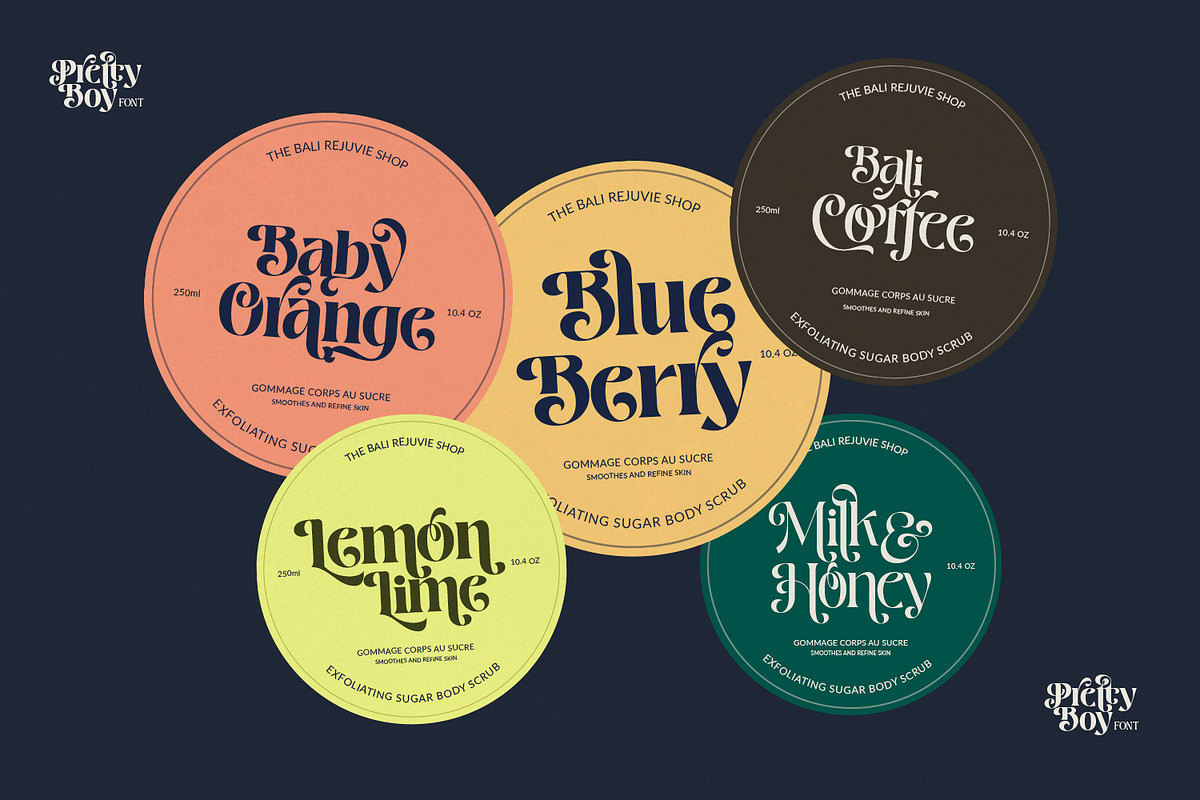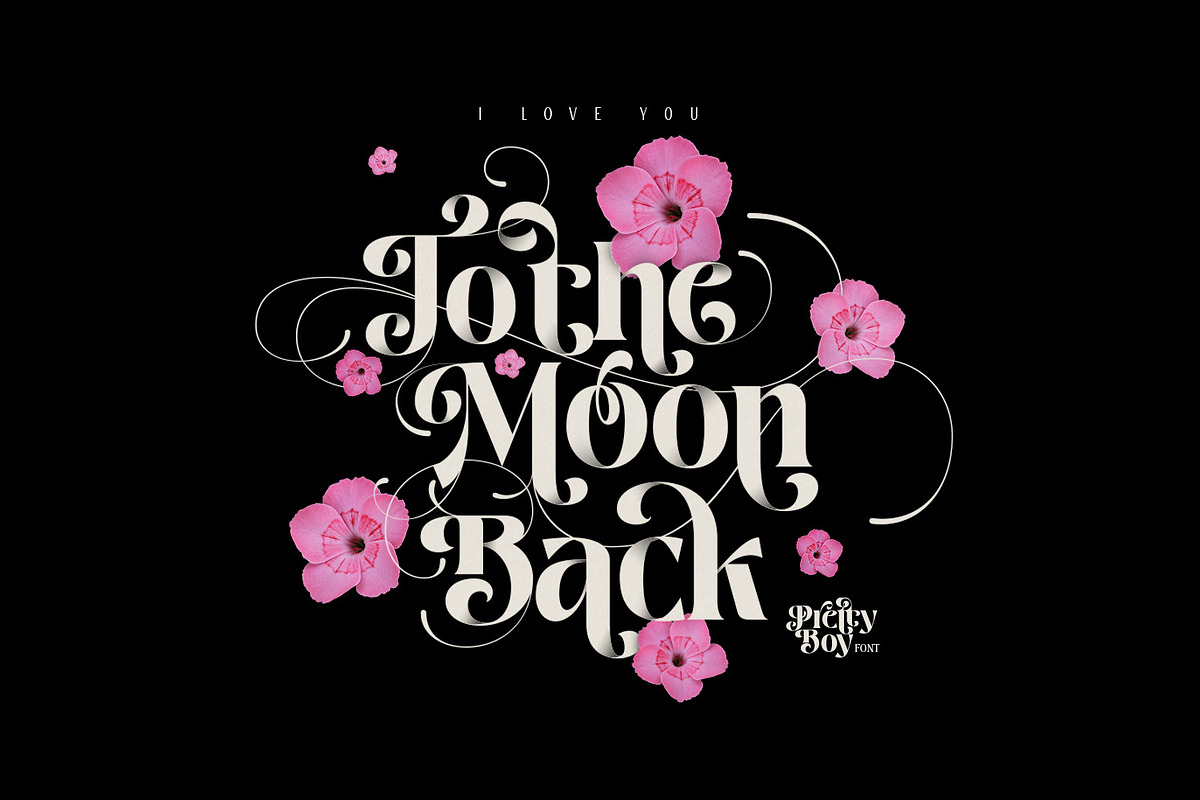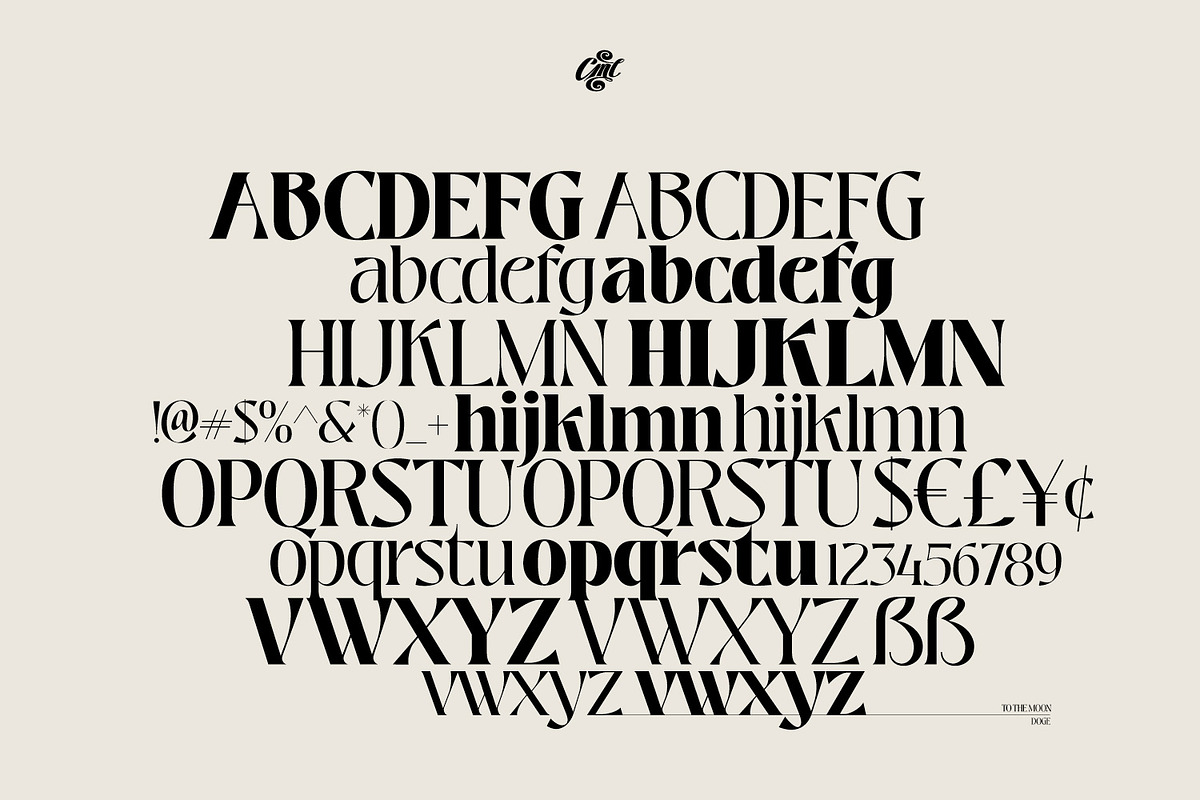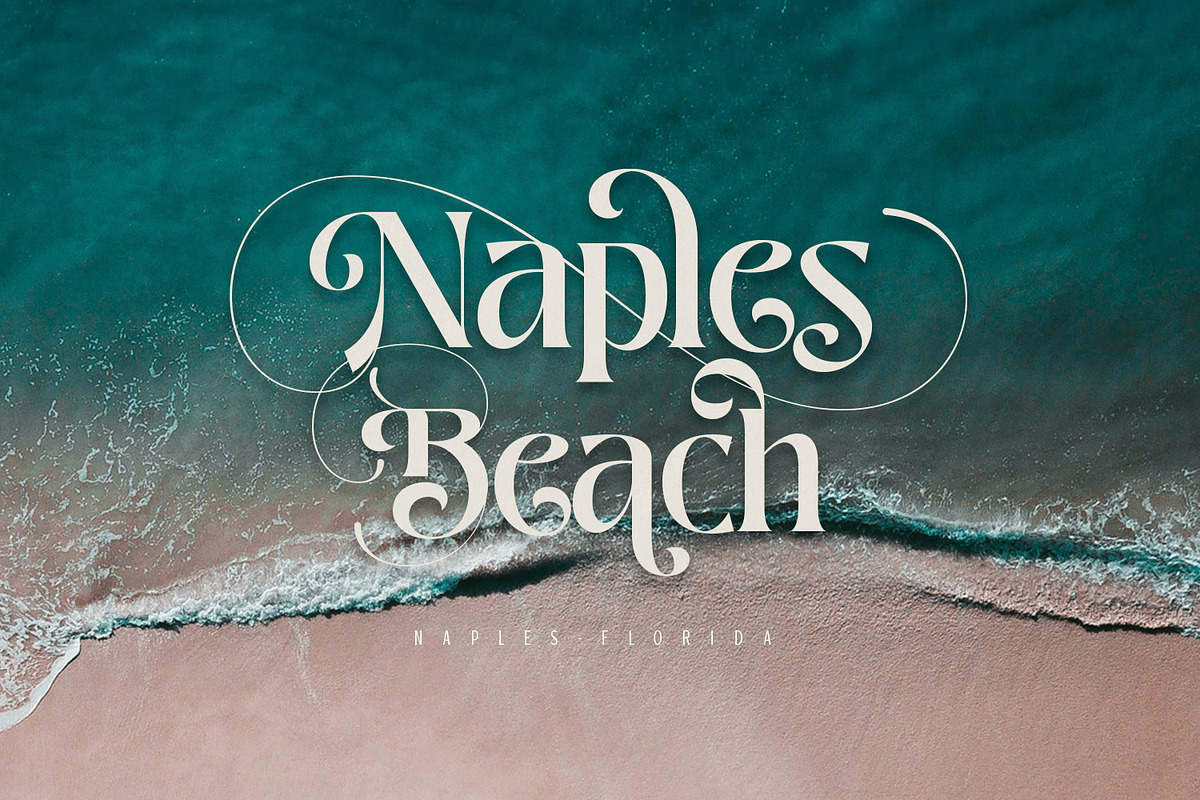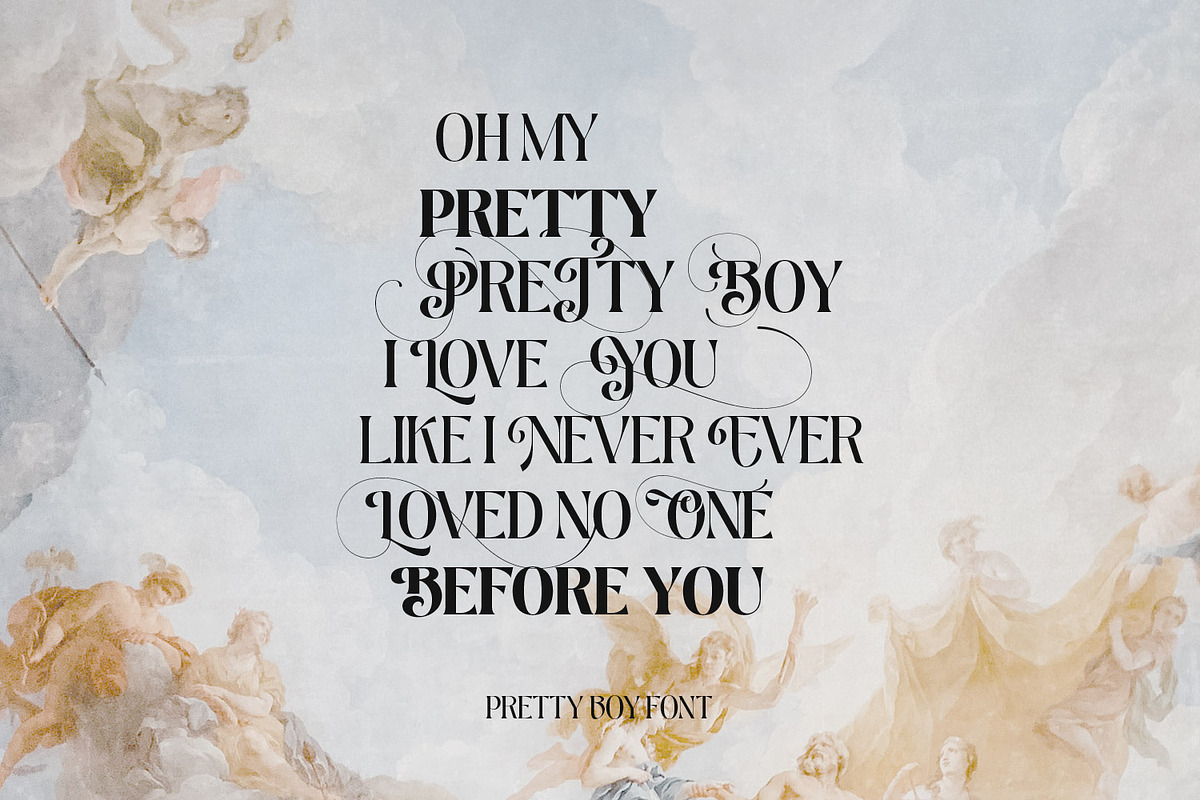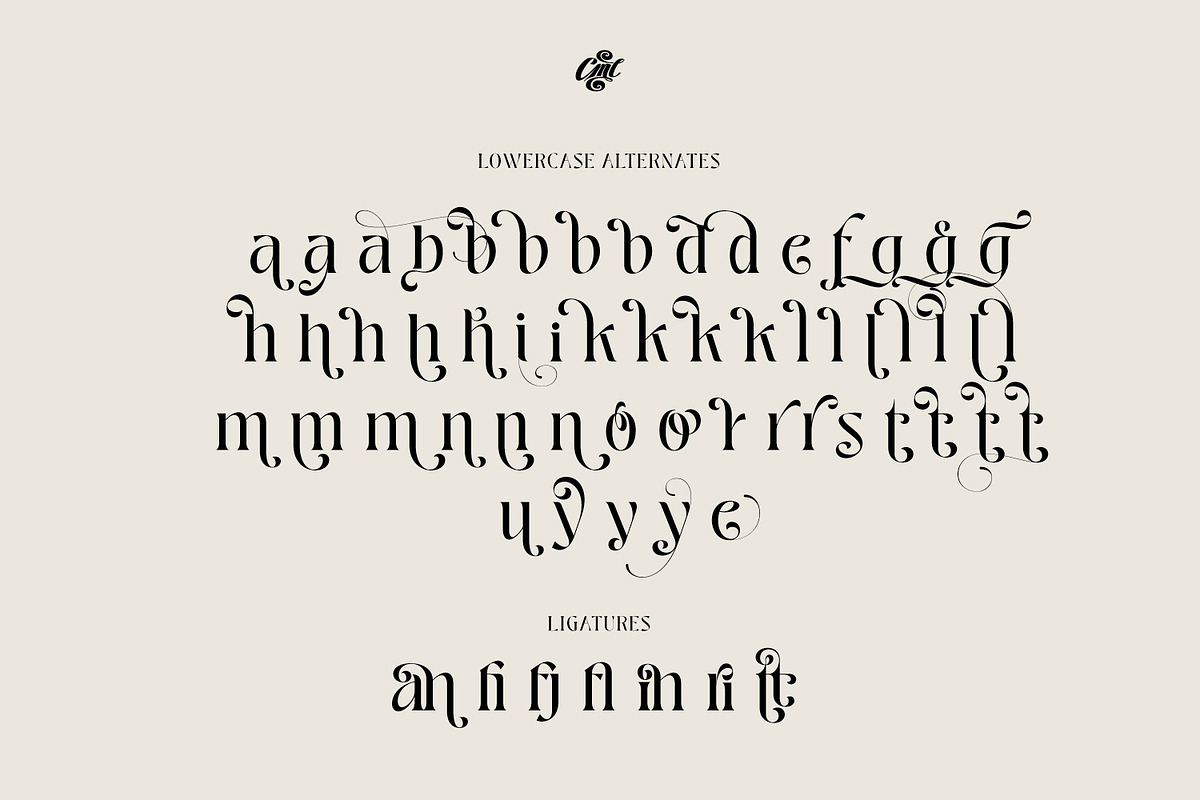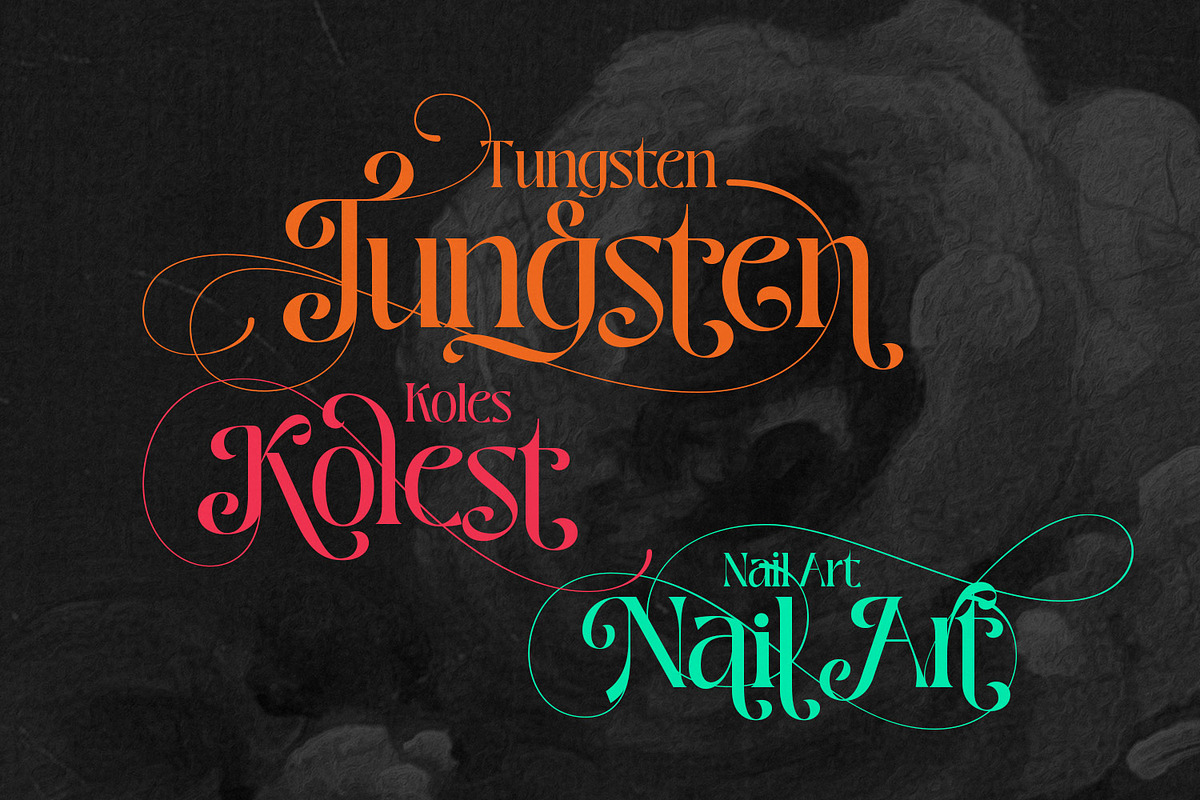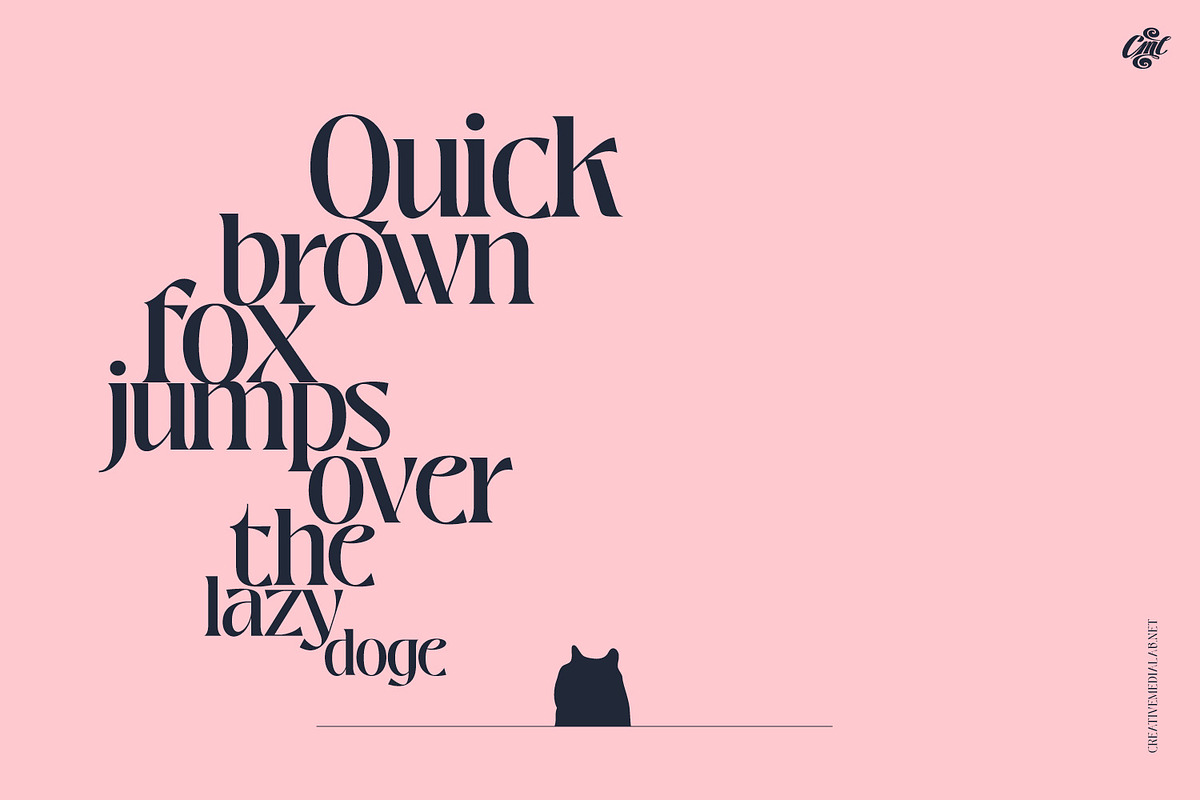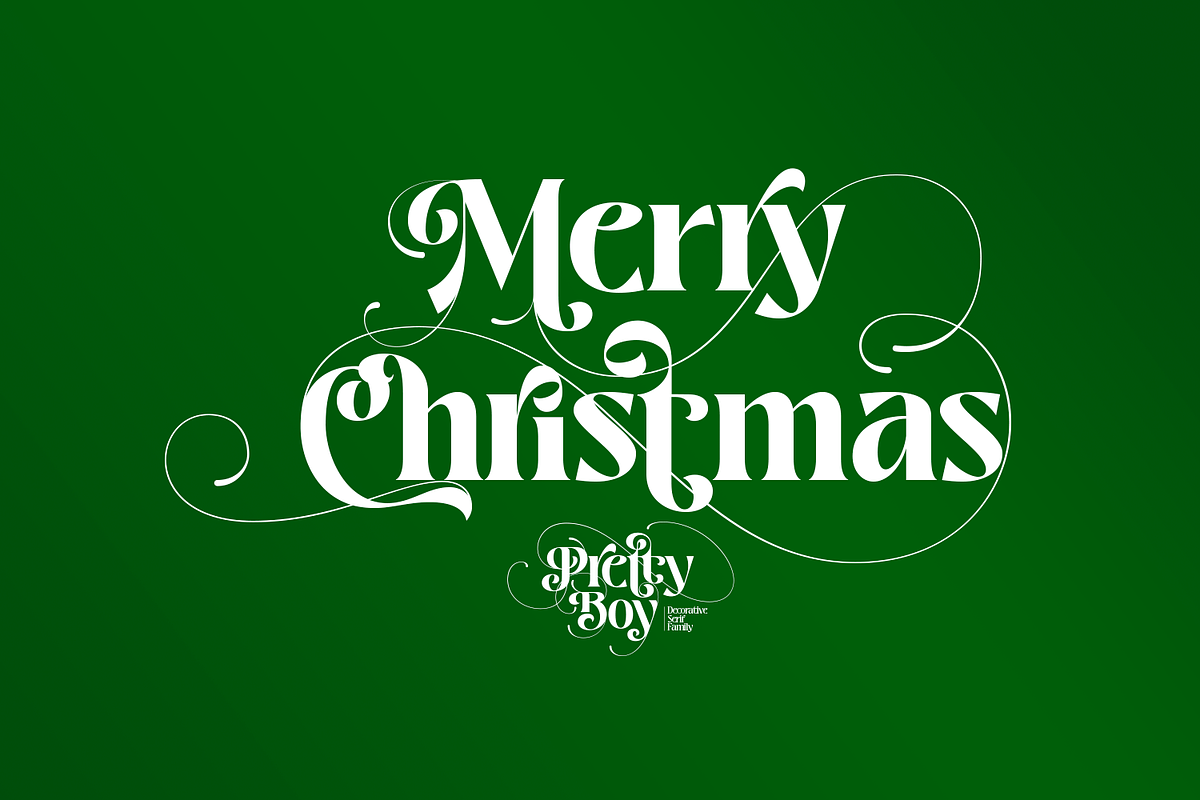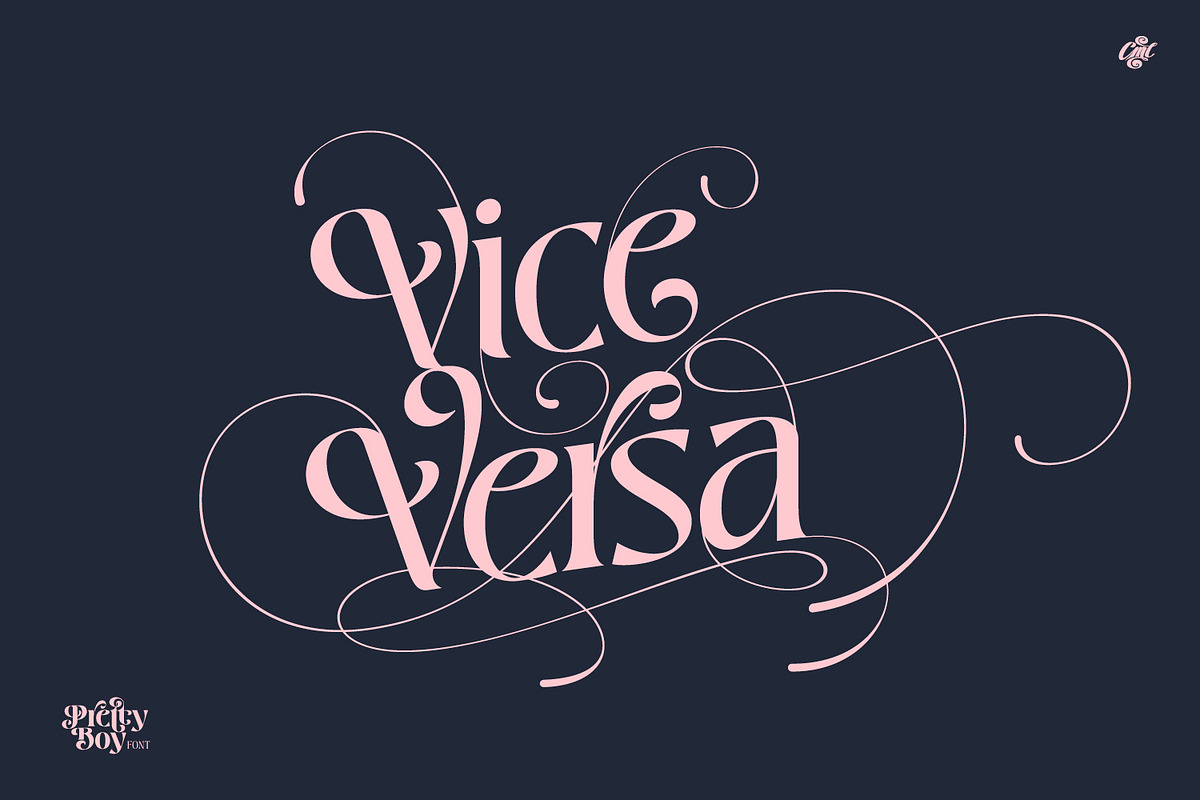
Pretty Boy - Decorative Serif family
Introducing Pretty Boy a decorative serif family.
This font consists of five weights and an ornament. It has many alternative options to arrange to get a fabulous and charming typography art.
Pretty Boy Ornament works excellent to pair with any fonts too!
This decorative serif family is perfect for designs like movie, poster, wedding invitations, and work great for logo, branding, headers, or labels.